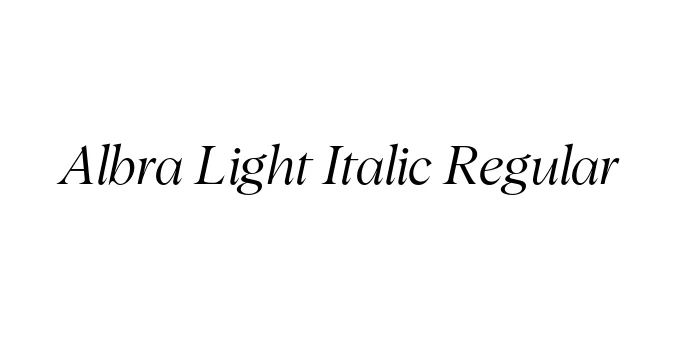
Albra Light Italic Regular
Designed by Tom Abood (BumbumType)
Albra Light Italic Regular is a sophisticated extension of the Albra font family, designed to provide a perfect balance between classic elegance and modern editorial flair. Characterized by its high-contrast strokes and a gracefully rhythmic slant, this typeface draws inspiration from transitional serifs while injecting a contemporary sensibility that makes it ideal for high-end fashion and lifestyle applications.
This Light Italic variant offers a delicate and airy aesthetic, maintaining excellent legibility even at display sizes. Its fluid motion and refined terminals allow it to excel in branding and editorial design where a touch of warmth and luxury is required. The font's open counters and balanced proportions ensure it remains a versatile choice for designers seeking a timeless aesthetic with a unique, artistic personality.
Albra Light Italic Regular Best Uses
Ideal for magazine headers, pull quotes, and sophisticated layout accents.
Perfect for luxury fashion labels, beauty products, and minimalist logos.
Great for high-end portfolio sites, landing page headers, and elegant blog typography.
Adds a romantic and professional touch to invitations and event programs.